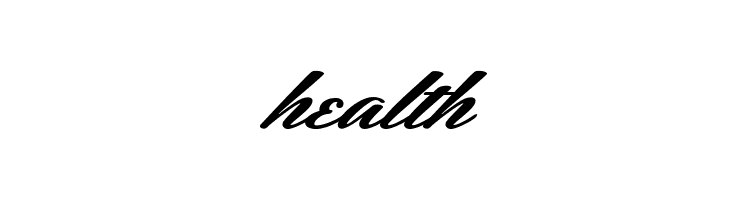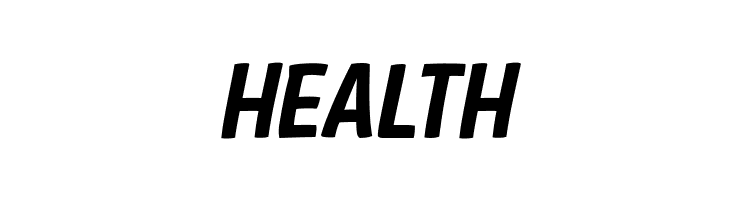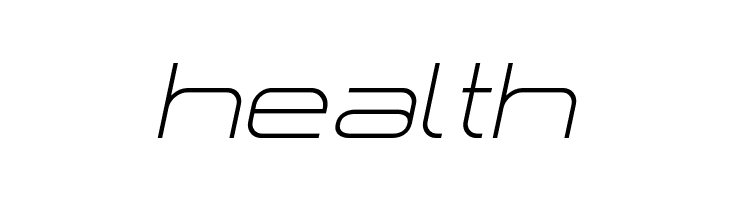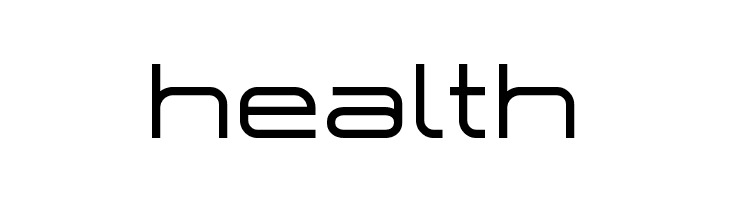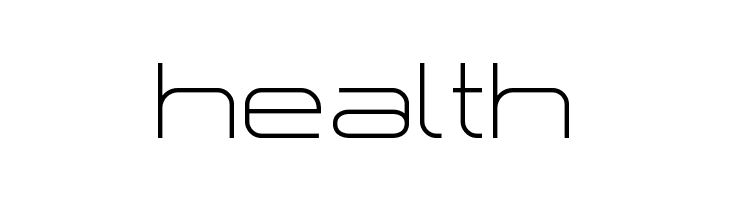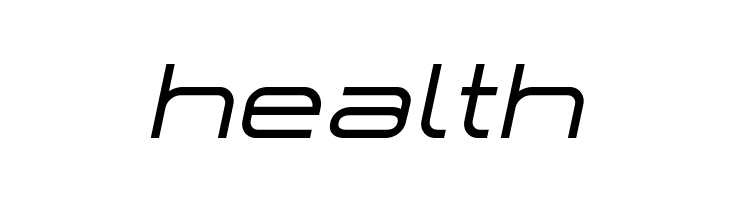
A modern, geometric font with thin, uniform lines and a minimalist design.
A sleek, modern italic font with geometric precision and a dynamic appearance.
A flowing, cursive script font with elegant, connected strokes.
An elegant, cursive font with intricate swashes and flourishes.
A bold, geometric font with strong, angular lines and a modern aesthetic.
A bold, playful font with a whimsical, cartoon-like style.
A dynamic and elegant script font with fluid strokes and a handwritten charm.
An elegant script font with fluid, cursive strokes and sophisticated flourishes.
A lively and expressive handwritten font with dynamic strokes.
A bold, cursive font with a playful and energetic style.
An elegant chancery script font with a flowing, cursive design.
A bold, geometric sans-serif font with a modern, industrial feel.
A flowing, cursive font with elegant and playful characteristics.
A graceful and flowing script font with elegant, connected strokes.
A playful and whimsical font with smooth, rounded letterforms.
A playful, bold font with rounded, bubbly letterforms.
A bold, rounded font with a playful and friendly style.